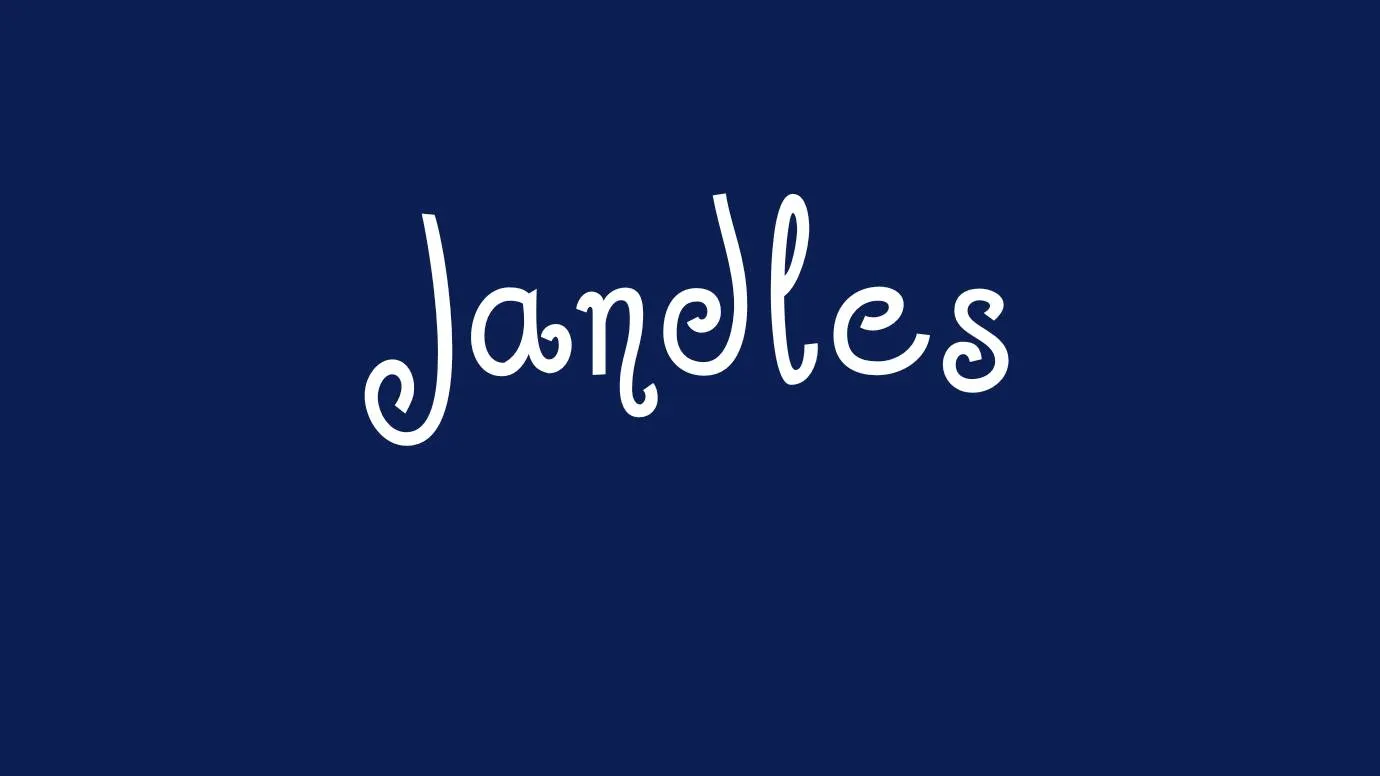
Jandles Font Family is a very unique fancy typeface with curly look characters. It was designed by a very famous designer Ray Larabie and manufactured by Typodermic Fonts. T
o give a more eye-catching look to your projects it can also be used for pairing with other fonts such as unicorn font. It will make your project look more elegant.
Jandles Font